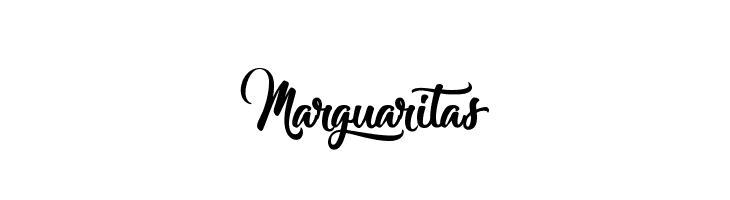
A lively and elegant script font with flowing, cursive letters and intricate swashes.
A classic script font with smooth, flowing curves and a handwritten aesthetic.
An elegant script font with flowing, cursive letterforms and intricate details.